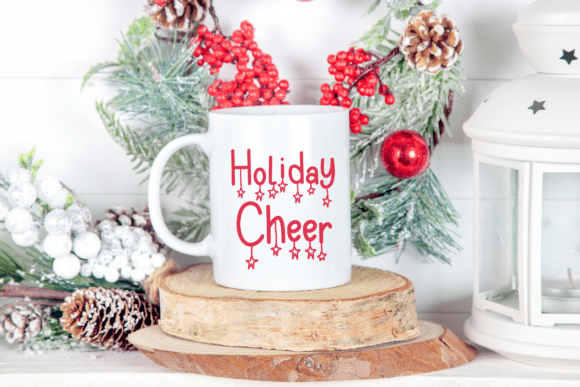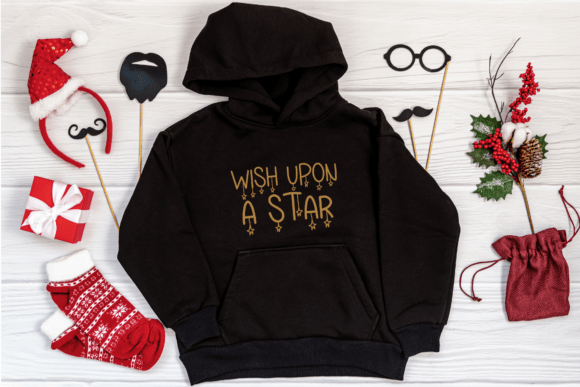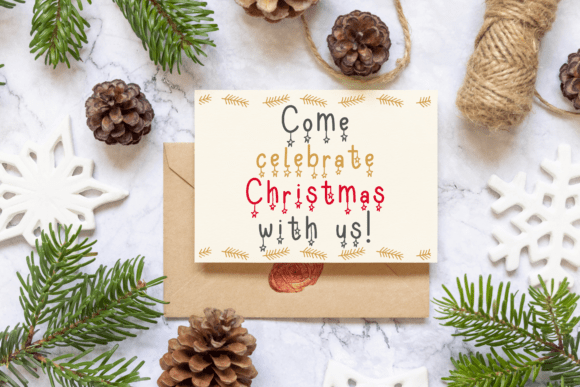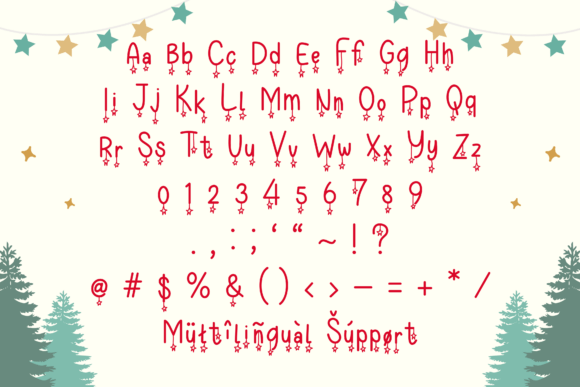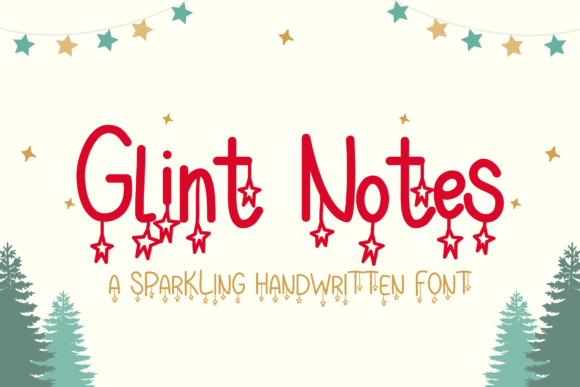
Add a Sprinkle of Magic to Your Designs with Glint Notes Font
Are you looking for a font that can add a touch of whimsy and magic to your designs? Look no further than Glint Notes, a charming handwritten font that’s perfect for the holiday season. This delightful font is adorned with tiny dangling stars, giving each letter a playful, sparkling touch that’s sure to bring a smile to anyone’s face.
The Perfect Font for Festive Designs
Glint Notes is specifically designed to bring a festive feel to your holiday projects. Whether you’re creating greeting cards, gift tags, invitations, or seasonal branding, this font is sure to add a touch of enchantment to your designs. The font includes both uppercase and lowercase letters, giving you the flexibility to create a wide range of designs that shine with personality.
A Whimsical Handwritten Font
Glint Notes is a handwritten font that’s full of character and charm. Each letter is carefully crafted to bring a sense of whimsy and playfulness to your designs. The font’s handwritten feel makes it perfect for creating personal, one-of-a-kind designs that will stand out from the crowd.
Tiny Dangling Stars Add a Touch of Magic
One of the standout features of Glint Notes is the tiny dangling stars that adorn each letter. These stars add a touch of magic to your designs, giving them a playful, sparkling feel that’s sure to delight. Whether you’re creating designs for children or adults, the stars in Glint Notes are sure to bring a smile to their faces.
Perfect for a Wide Range of Designs
Glint Notes is a versatile font that can be used for a wide range of designs. Here are just a few ideas to get you started:
- Festive greeting cards: Create personalized greeting cards for friends and family that shine with personality.
- Gift tags: Add a touch of magic to your gift tags with Glint Notes, making them perfect for presents, stocking stuffers, and more.
- Invitations: Create enchanting invitations for holiday parties, events, and gatherings that will leave a lasting impression.
- Seasonal branding: Use Glint Notes to create festive branding for your business, including logos, packaging, and marketing materials.
Why Choose Glint Notes?
There are many fonts to choose from, but Glint Notes stands out from the crowd. Here are just a few reasons why:
- Unique and eye-catching: Glint Notes is a one-of-a-kind font that’s sure to grab attention.
- Playful and whimsical: The font’s playful, whimsical feel makes it perfect for holiday designs.
- Flexible: With both uppercase and lowercase letters, Glint Notes can be used for a wide range of designs.
Tips for Using Glint Notes
Here are a few tips for getting the most out of Glint Notes:
- Experiment with different colors: The font looks great in a range of colors, from bright and bold to soft and pastel.
- Mix and match: Combine Glint Notes with other fonts for a unique, layered look.
- Don’t be afraid to get creative: The font’s playful feel makes it perfect for experimenting with different design ideas.
Glint Notes is a charming handwritten font that’s perfect for adding a touch of magic to your holiday designs. With its tiny dangling stars and playful, whimsical feel, this font is sure to bring a smile to anyone’s face. Whether you’re creating greeting cards, gift tags, invitations, or seasonal branding, Glint Notes is the perfect choice. So why wait? Download Glint Notes today and let your words twinkle and dazzle this holiday season!